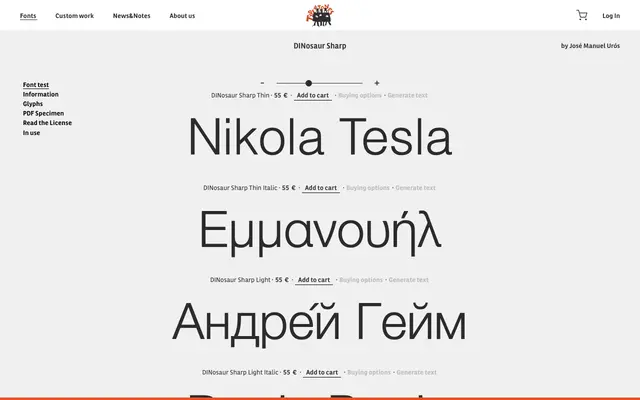
DINosaur Sharp
Type-ø-tones · José Manuel Urós
A DIN-derived geometric sans by José Manuel Urós, offered in six weights with italics and broad script coverage across Latin, Cyrillic and Greek.
Taking cues from the DIN industrial sans tradition, DINosaur Sharp adds a sharpness to the genre's typically mechanical forms across six weights from Thin to Black, each with a matching italic. The family covers Latin, Cyrillic and Greek, making it a practical choice for multilingual publishing and signage. The naming nods to its DIN heritage while the sharp detailing gives it a slightly more contemporary edge.
DINosaur Sharp draws from the DIN tradition, a geometric industrial sans-serif lineage rooted in German engineering standards, with sharp detailing that aligns it firmly within the geometric sans category.